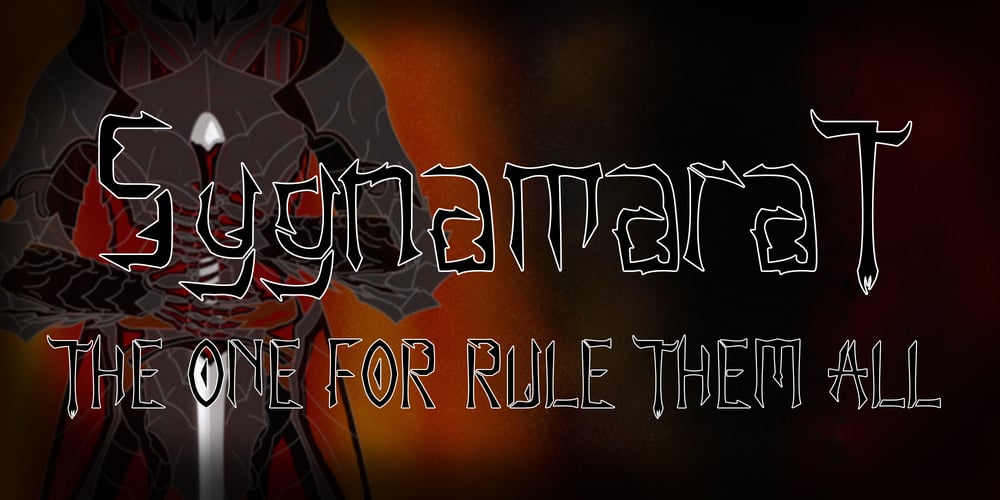
Sygnamarat Font Family was designed by Ali Nurdiansyah and published by Alcytrectype. Sygnamarat contains 1 styles and family package options. It comes with different carvings but with the same pattern on the inside.making it even more unique and also a characteristic of each shape and its own characteristics.The good and prominent thing that is displayed in the design is that we can easily recognize each pattern displayed.